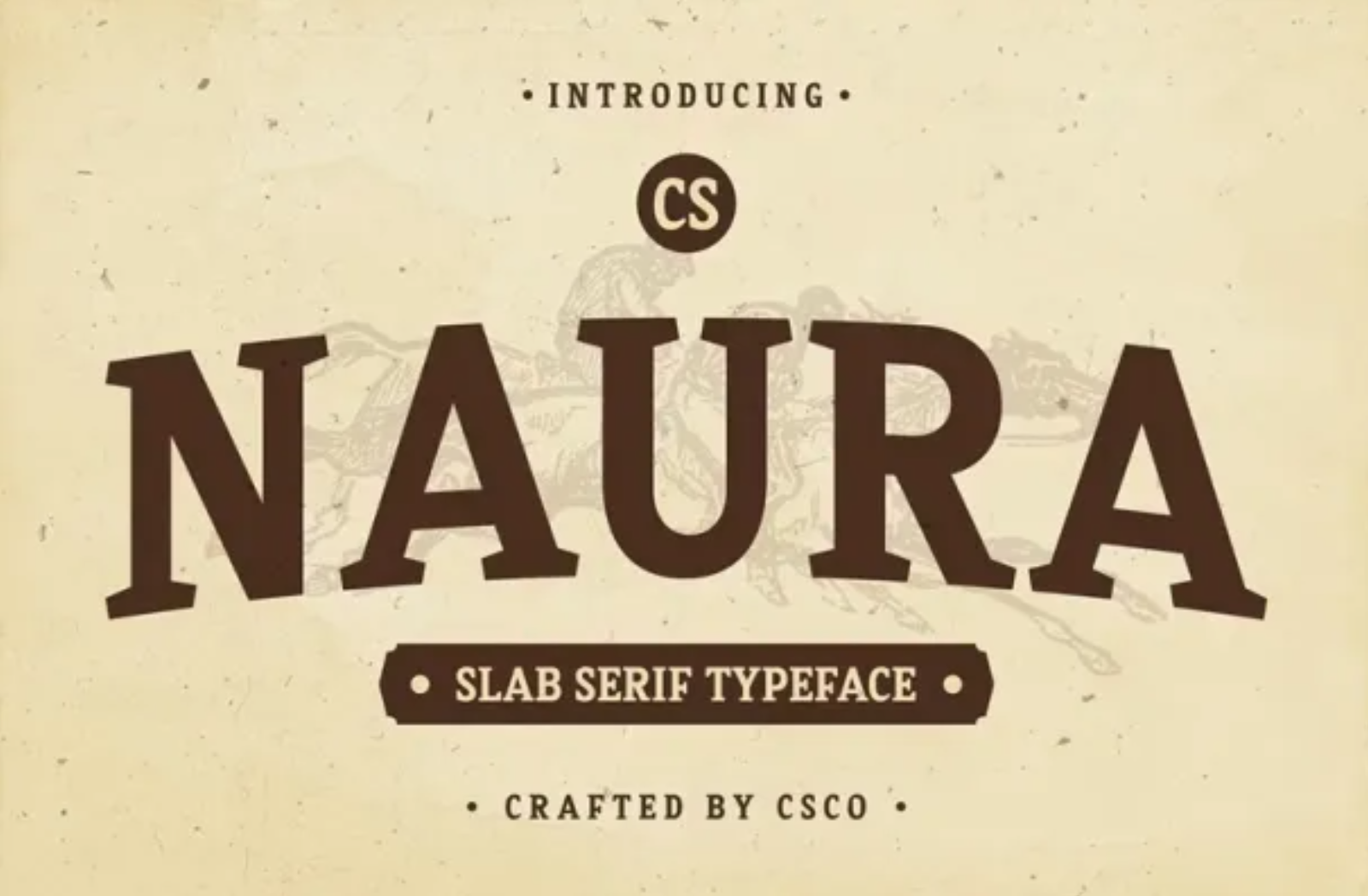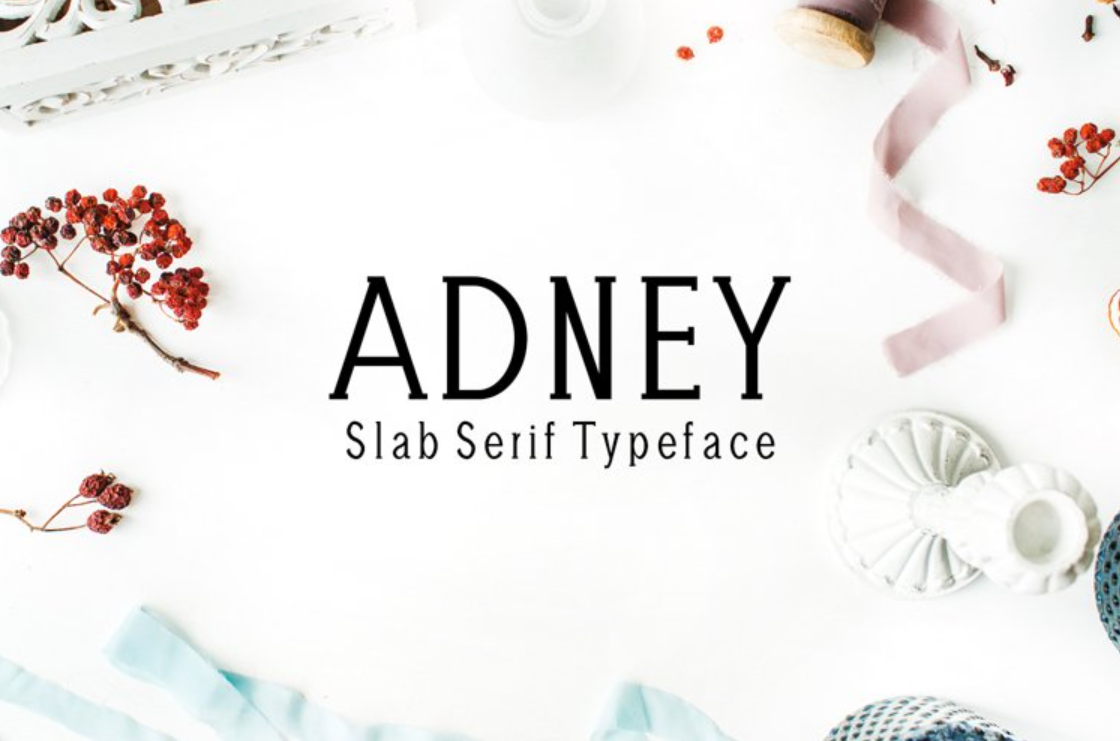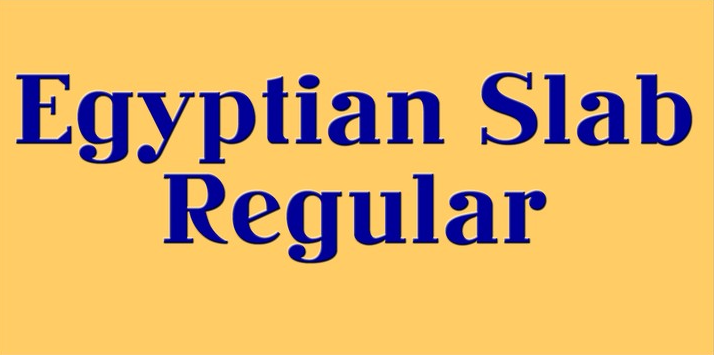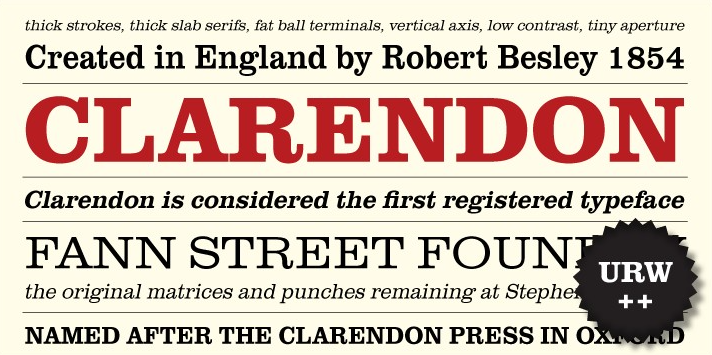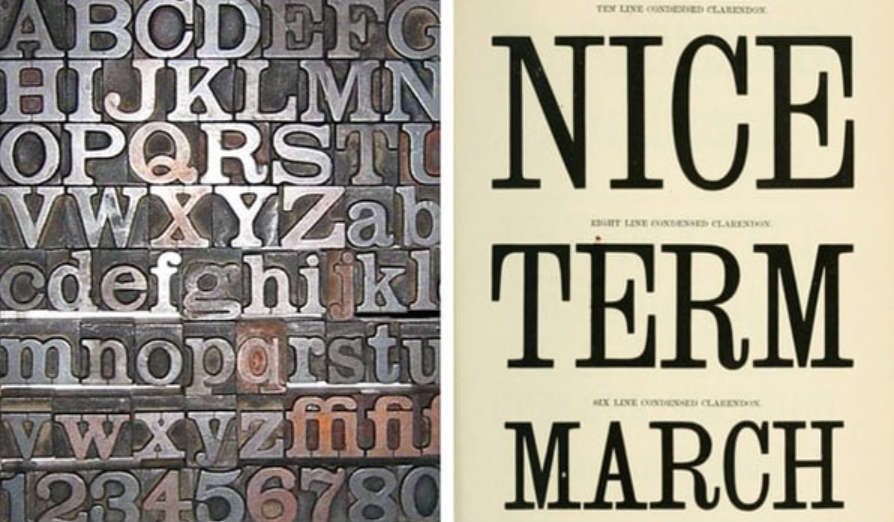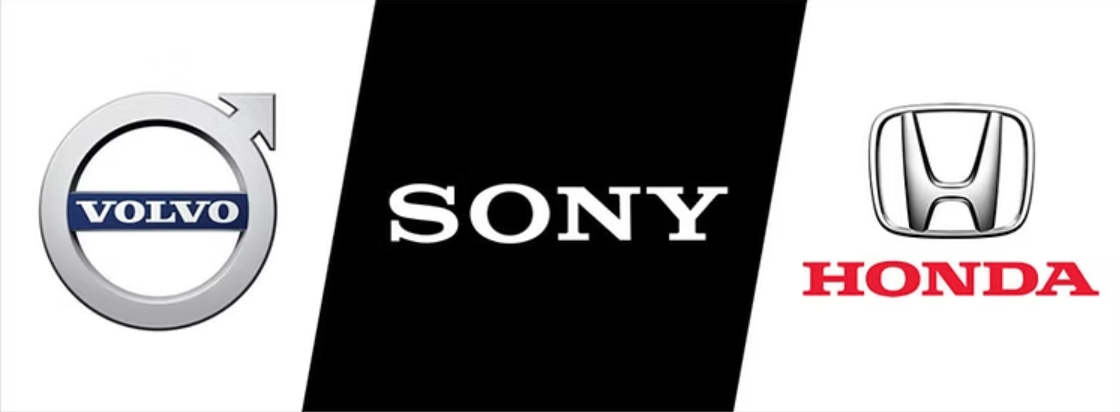
Spark Creativity With Slab Serif Fonts
Slab Serif – A must-have font for any modern designer’s collection. With its strong structure, readability and distinct personality, Slab Serif not only brings professionalism but also inspires creativity to any project.
In the modern graphic design world, typography is not just writing but also the art of storytelling, the bridge between the brand and the audience. One of the font styles that is causing a stir and has its own unique mark is Slab Serif . Therefore, learning and properly applying this font style becomes extremely necessary for professional designers as well as those who are new to the creative field.
1. Definition and Characteristics of Slab Serif
Slab Serif is a font style characterized by thick, clean, and strong strokes. With its strong lines, Slab Serif not only evokes a classic but also brings a modern feel, especially when creatively combined with contemporary design elements. Outstanding characteristics such as even stroke thickness, sharp edges, and solid shapes make Slab Serif a favorite choice for many brands when wanting to convey a message of stability, power, and personality.
Over the decades, Slab Serif has evolved with the intersection of many design styles:
Classic Slab Serif: Reminiscent of traditional designs with bold strokes, creating a sense of power and stability.
Modern Slab Serif: Stylized with vibrant color elements and subtly combined with other design elements, in line with digital and modern trends.
The flexibility in switching between classic and modern has made Slab Serif the top choice of many designers when wanting to create unique and creative products.
2. Features and Characteristics of Slab Serif
2.1. Outstanding Design Features
Slab Serifs are recognized by their thick, solid strokes that give them a strong and sturdy feel. The structure of these letters is often uniform in thickness and clear in shape, creating a stable "companion" in every design. These lines not only help convey the message visually but also create a difference at first sight.
Even thickness of the serifs: This is an element that helps emphasize stability and reliability. When looking at it, viewers can easily recognize the strong and sturdy nature of the message that the brand wants to convey.
Clean shapes: Sharp lines and optimized spacing make text stand out against complex graphics or detailed photos.
Intuitive and Impressive: With its bold and powerful design, Slab Serif gives an immediate sense of professionalism and uniqueness.
2.2. Advantages of Using Slab Serif
The advantages that Slab Serif brings when appearing in design projects are numerous:
Create a sense of stability and trust: The thick and solid lines of Slab Serif help create confidence and trust from customers. This is a strong point when applied in the financial, legal or any industry that requires affirmation of reliability.
Easy to read and stand out: Especially at large sizes such as on signs, posters or headlines, Slab Serif always retains its legibility and prominence. This helps to convey the message effectively, even from a distance.
Versatility: Whether you're designing for print or digital, Slab Serif can easily adapt to a variety of styles. This versatility makes it a go-to choice for designers.
2.3. Limitations to Note
Despite its many advantages, when used incorrectly, Slab Serif can also become heavy or outdated:
Heavy Feeling: If not properly coordinated with other design elements, using Slab Serif too boldly can make the overall design "constrained" and inflexible.
Imbalance: When combining with other fonts, attention must be paid to the proportions and spacing between letters to avoid losing the harmony of the overall layout.
Bad choice: Slab Serif fonts are not always the best choice for every type of design. Choosing the wrong font can reduce the user experience or even take away from the "soul" of the brand.
3. Popular Slab Serifs Groups
Egyptian (Antique)
This group refers primarily to the earliest Slab Serifs, which were primarily monolinear (consisting of single linear strokes or with little or no contrast between vertical and horizontal strokes).
French Clarendon (Italian)
This group is notable for the weight and thickness of its serifs. As a result, French Clarendons have a majestic and attention-grabbing effect. Not surprisingly, they are often used in posters and other sensational news announcements. Look for this group to feature prominently in Hollywood film typefaces. French Clarendon (Italienne) has been widely used from the early 20th century to the present day.
Clarendon
Clarendon is unique among the other subgroups because its fonts have a degree of size contrast and contrast in the actual serifs. Since the serifs in Clarendon are often curved, they change in size by becoming wider as they approach the main stroke of the characters. Many Clarendon fonts also bear a resemblance to 19th-century serif font designs; that is, they have a significant difference in stroke width between the vertical and horizontal strokes.